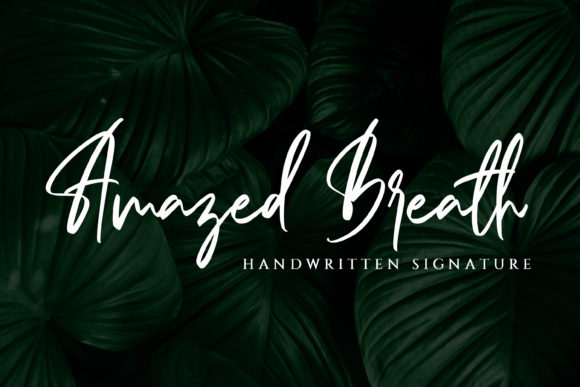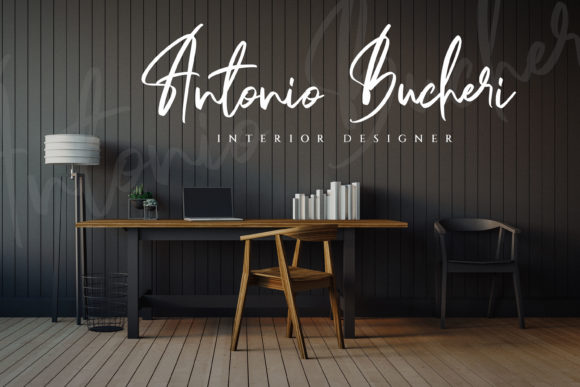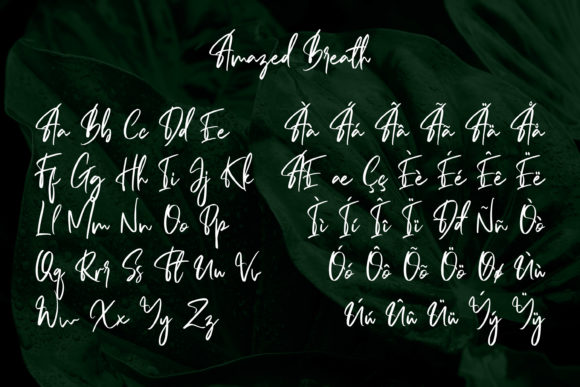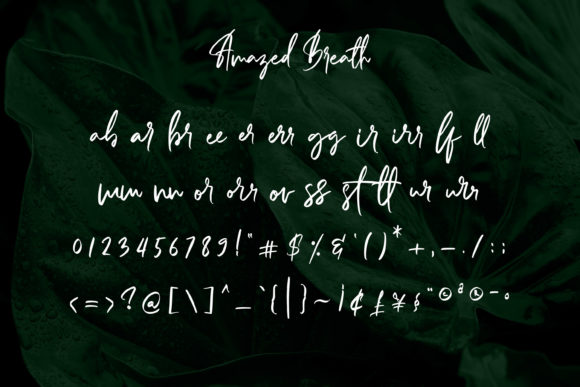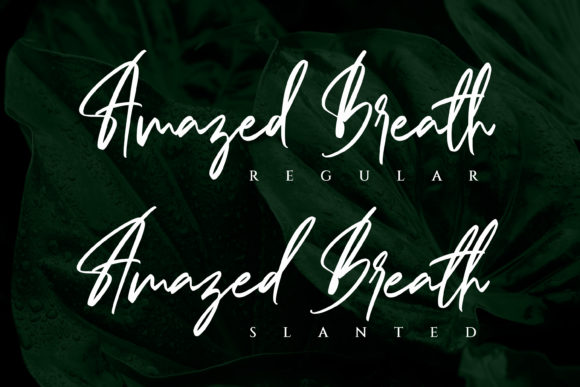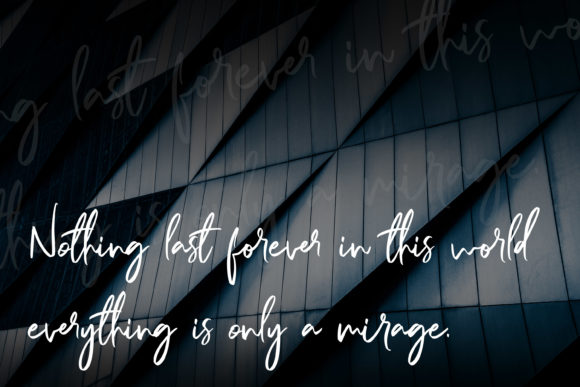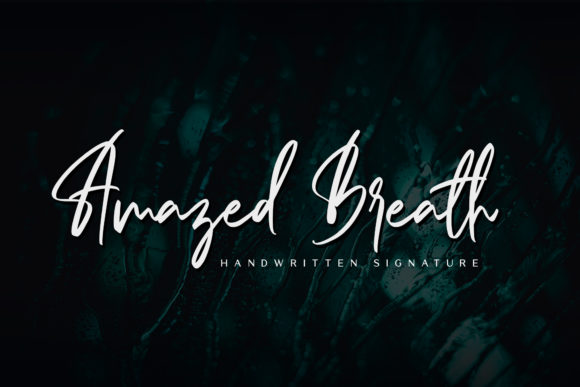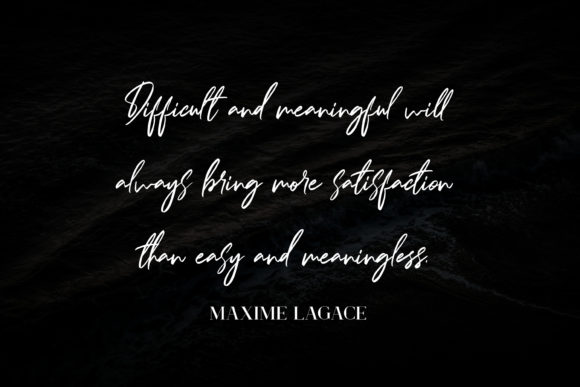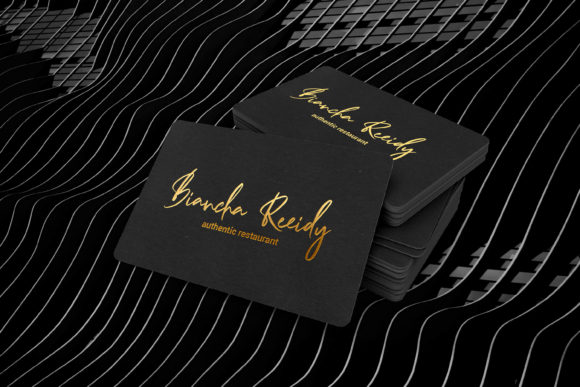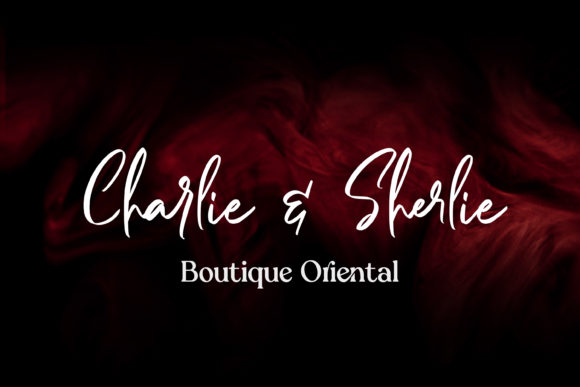
Amazed Breath Font
About Amazed Breath Font
Amazed Breath is a delightfully classy and light script font that comes in 2 stunning versions: Slant and Regular.